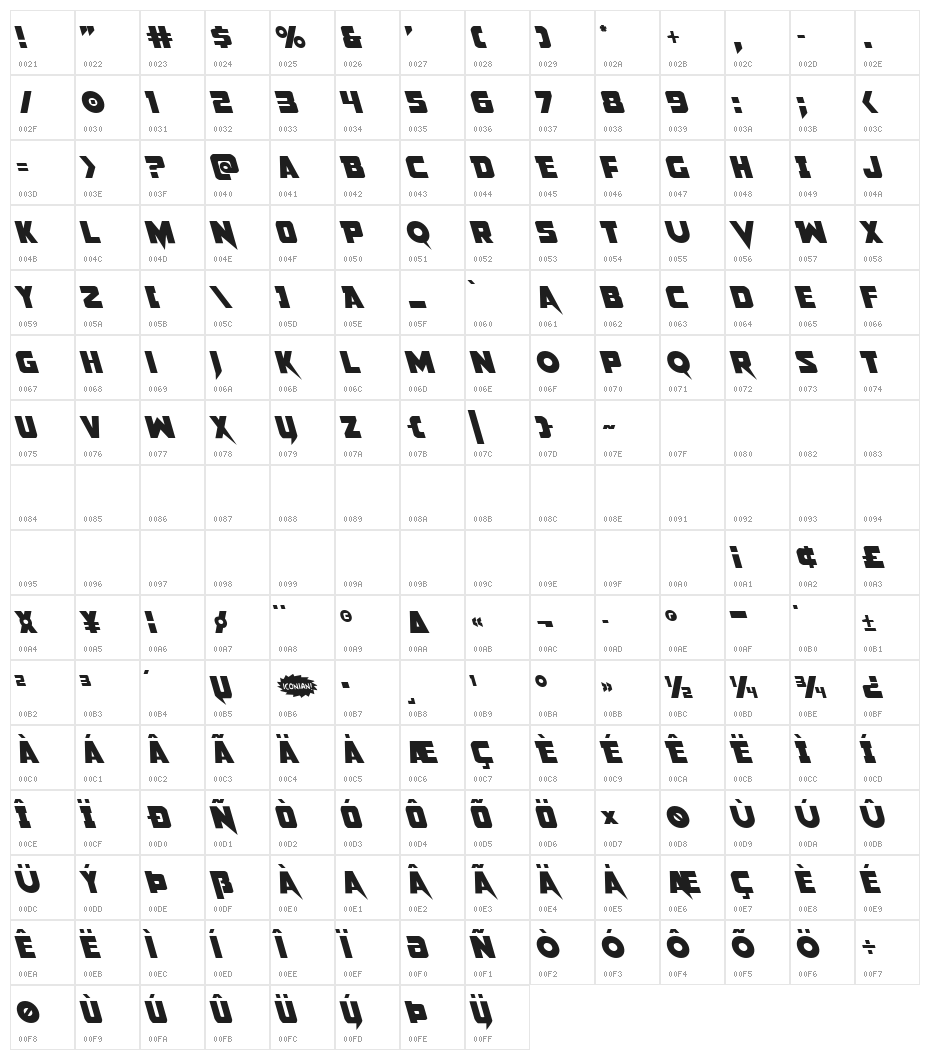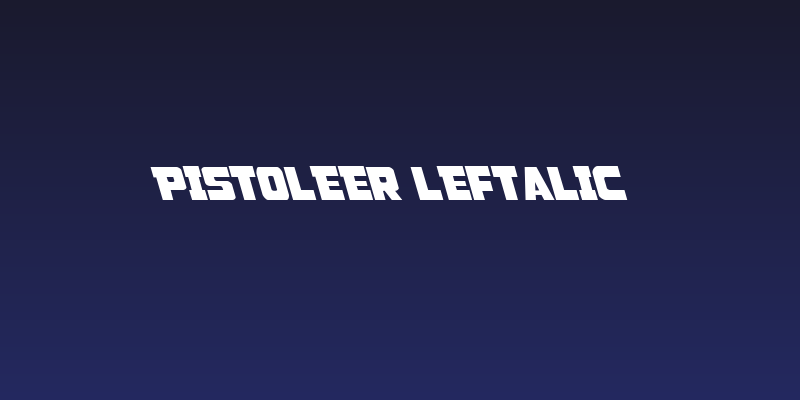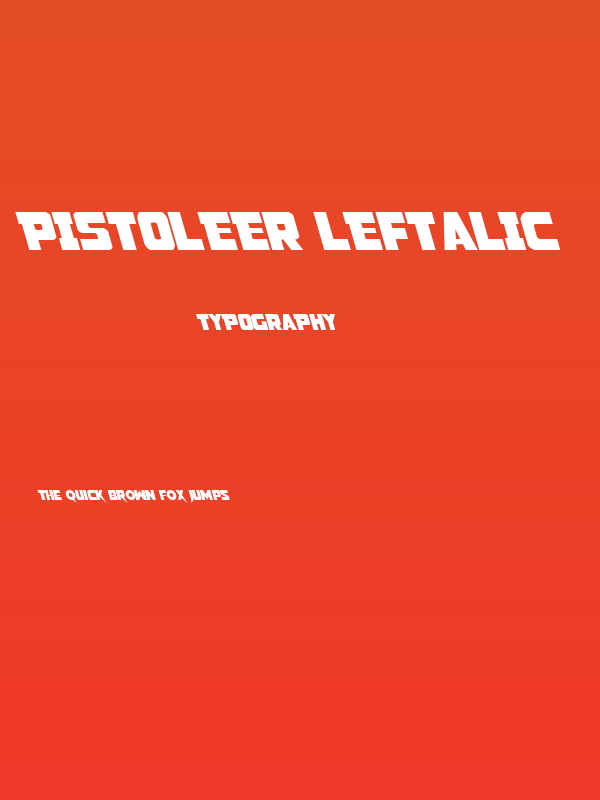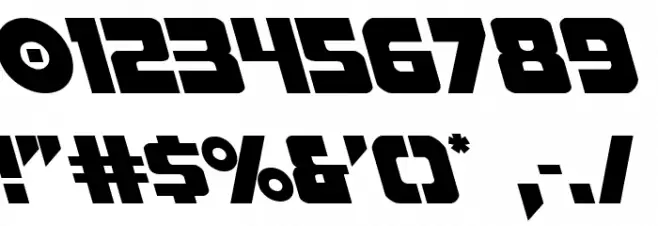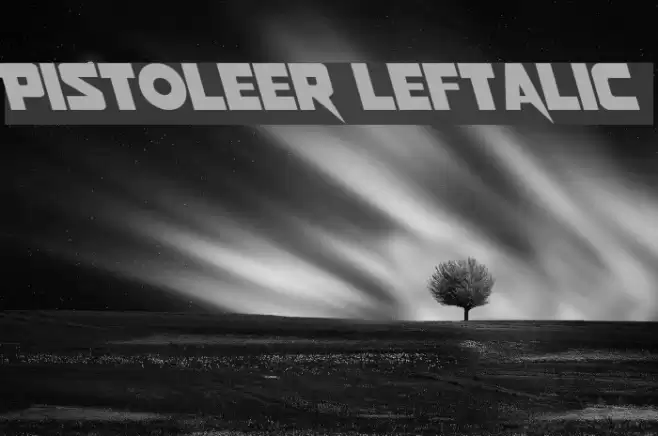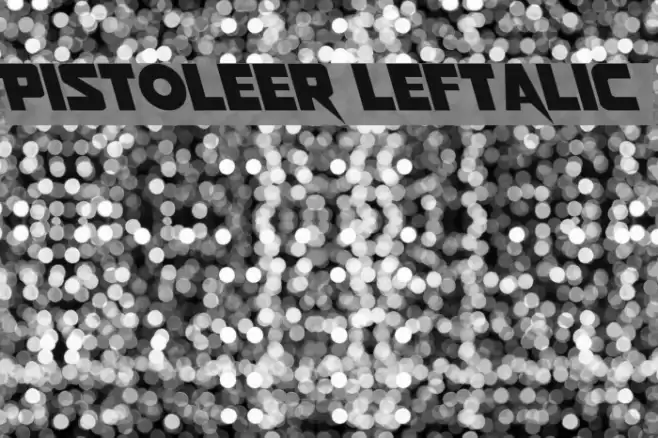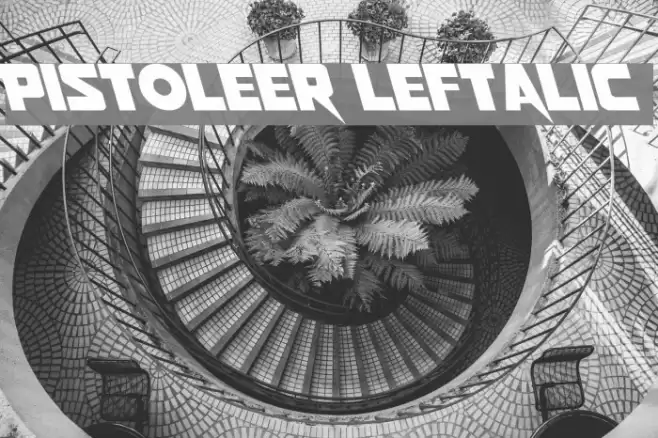
Pistoleer Leftalic Font
Pistoleer Leftalic Description
This font features a bold and dynamic design with sharp, angular edges and a distinct slant to the left, giving it a sense of motion and energy. The characters are blocky and robust, with a strong presence that commands attention. The uppercase and lowercase letters maintain a consistent style, with exaggerated serifs that add to the aggressive and impactful look. The numbers and special characters follow the same bold and angular theme, ensuring uniformity across all glyphs. This font is ideal for projects that require a strong visual impact and a modern, edgy aesthetic.
| Proposed Projects | Ideal for sports branding, action movie posters, video game titles, and edgy advertising campaigns. |